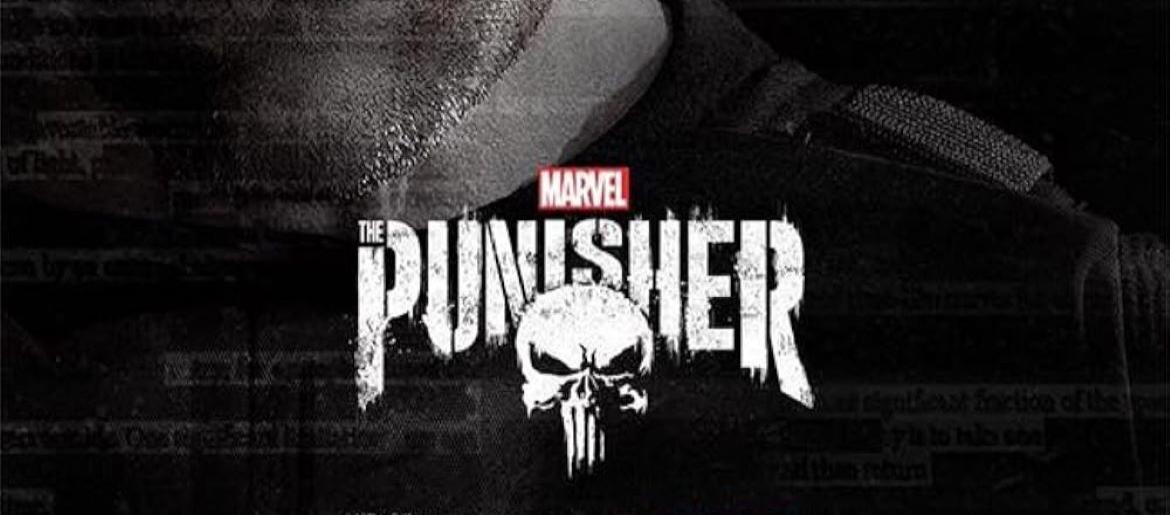
The Punisher Font
The Punisher font captures the raw, gritty energy of Marvel’s legendary antihero, channeling the character’s fierce pursuit of vengeance and justice. Its rugged, heavy lettering mirrors the intensity and brutality associated with Frank Castle’s world, making it perfect for designs that demand boldness and edge. Whether you’re working on gaming visuals, comic-inspired graphics, or aggressive branding, this typeface instantly injects power and attitude. With its tough, uncompromising style, the Punisher font adds a sense of danger and determination that stands out in any project.
About The Punisher
The Punisher is one of Marvel’s most iconic vigilante characters, first appearing in 1974. The story follows Frank Castle, a former Marine who becomes a relentless one-man force against crime after the tragic loss of his family. The character has appeared in comics, films, and TV adaptations, including the 2017 Netflix series, known for its dark tone and intense storytelling.